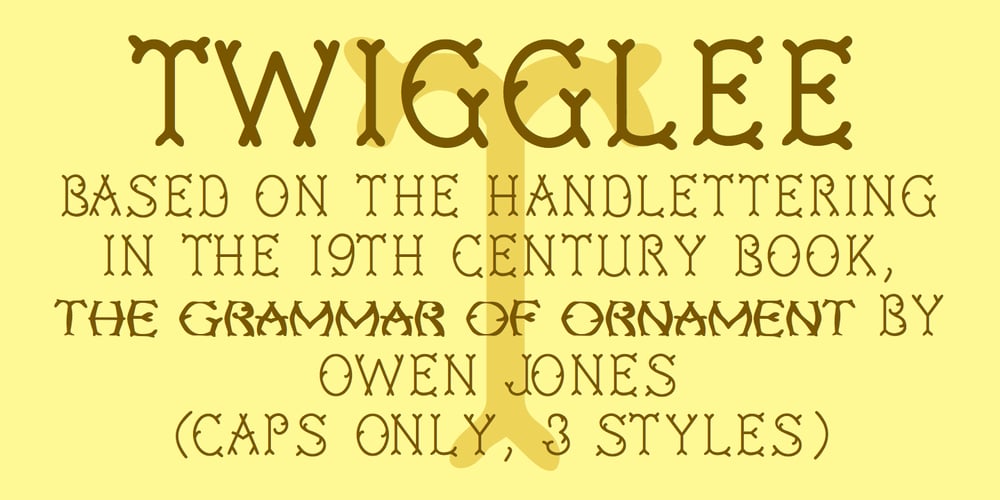
Twigglee
Twigglee font
Twigglee Font Family was designed by Robert Schenk and published by Ingrimayne Type. Twigglee contains 3 styles and family package options. Twigglee was inspired by the hand lettering on the plates in a 19th century book on ornaments by Owen Jones. It has no lower-case letters; the upper-case letters are simply repeated on the lower-case keys.